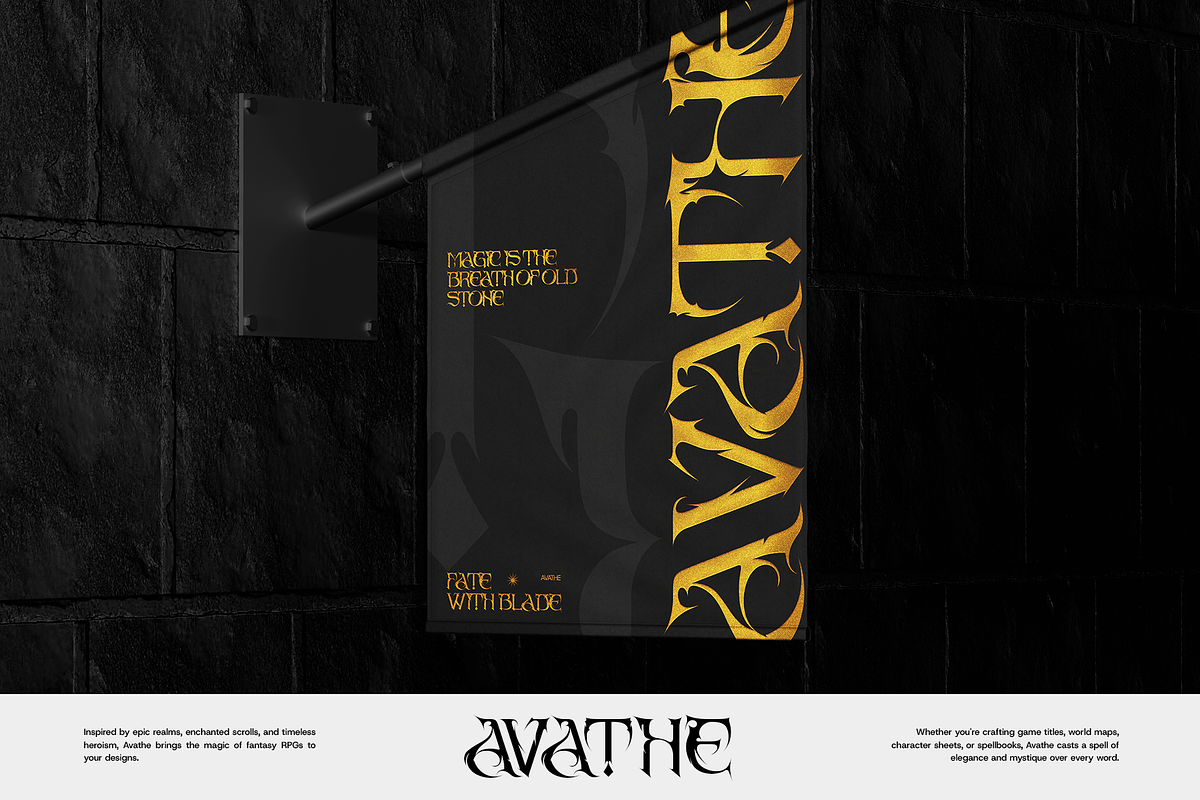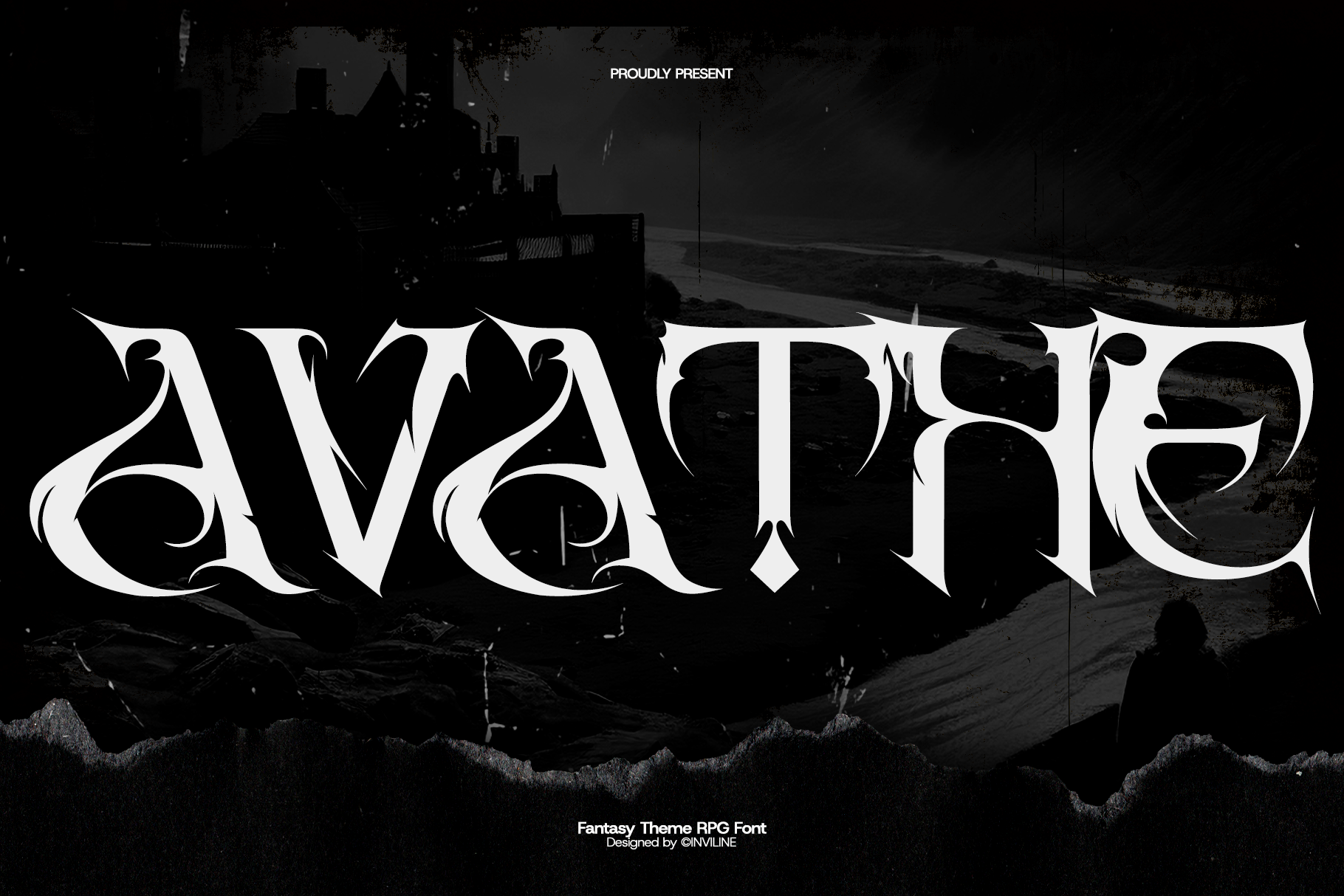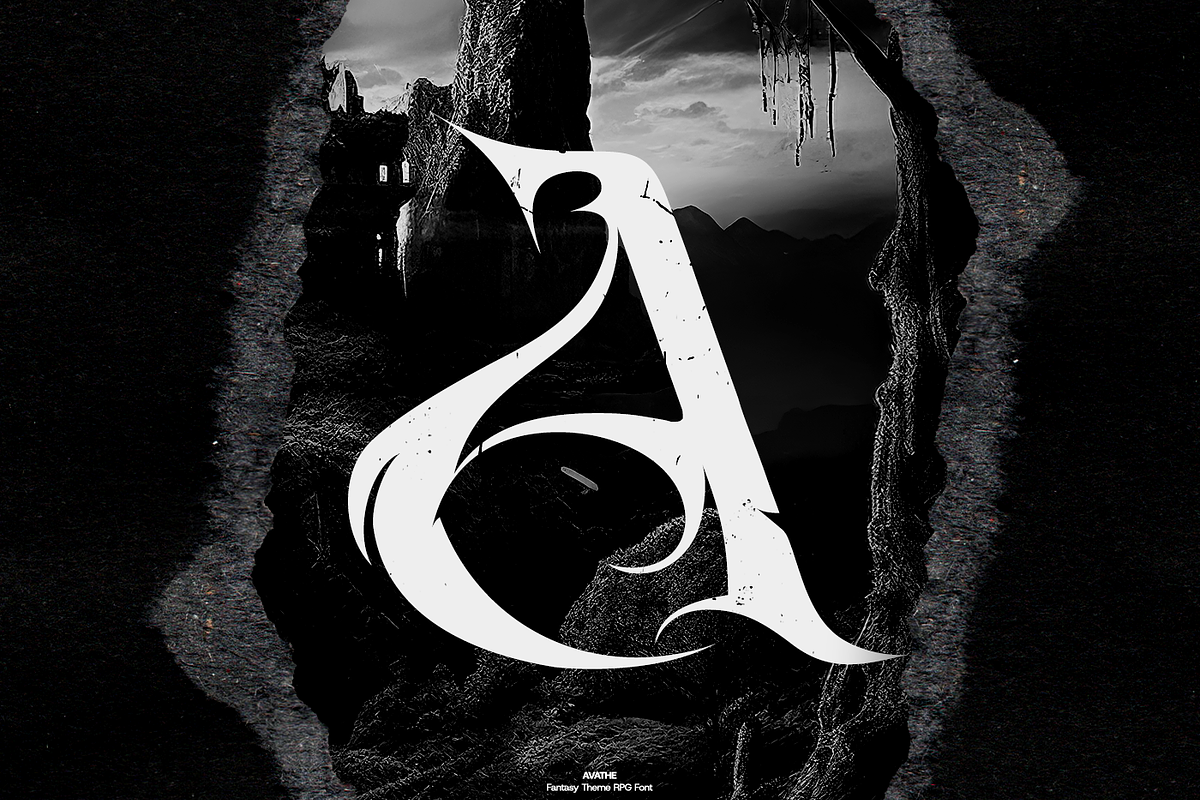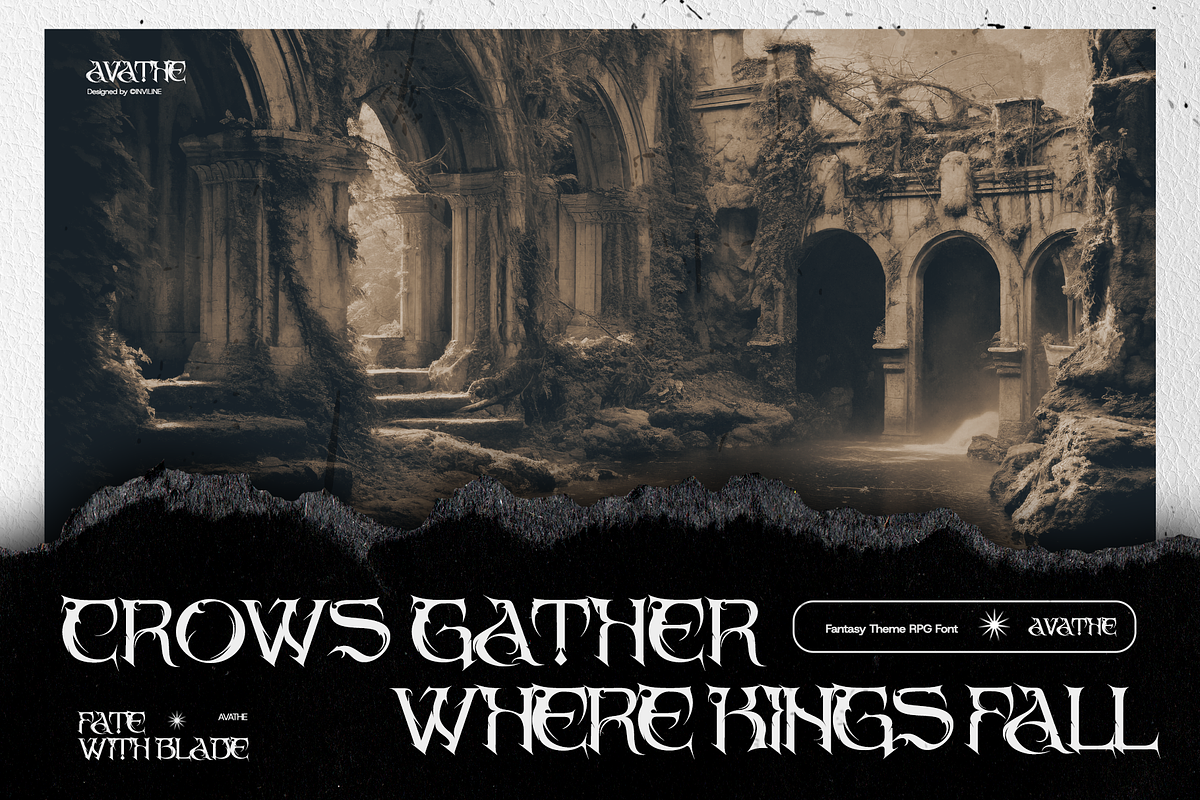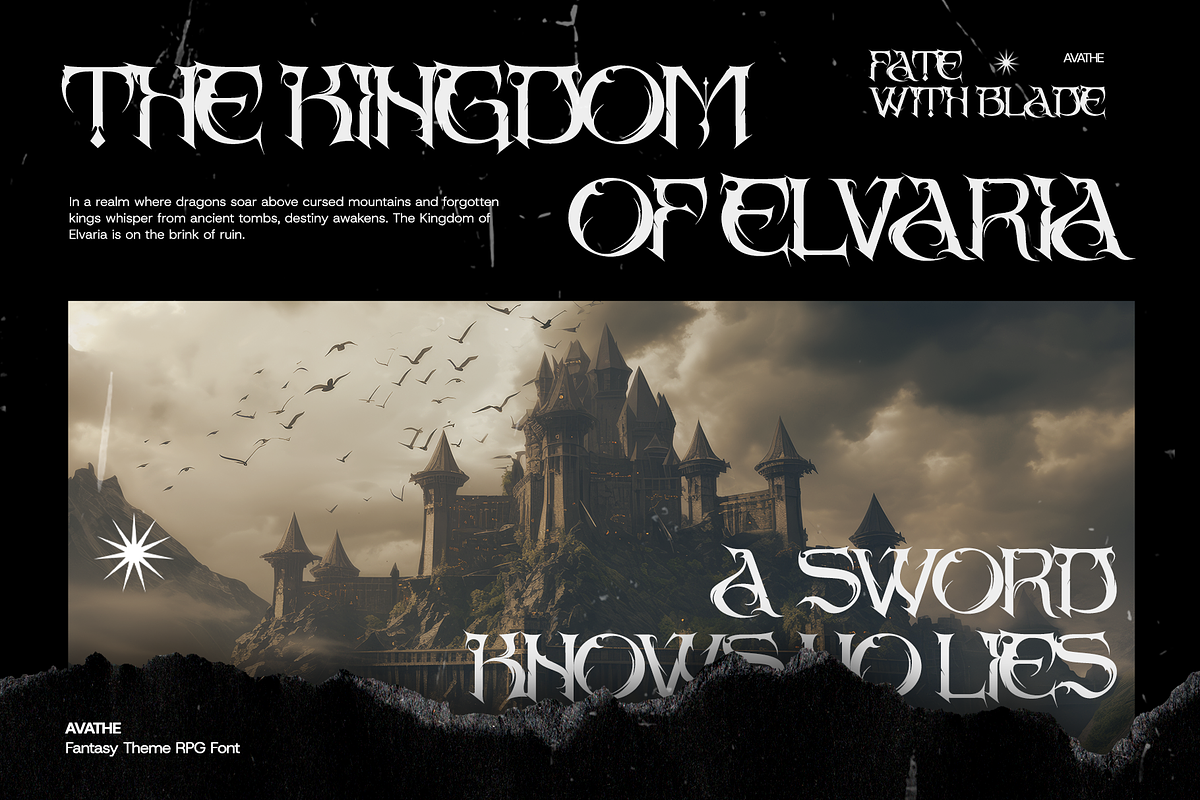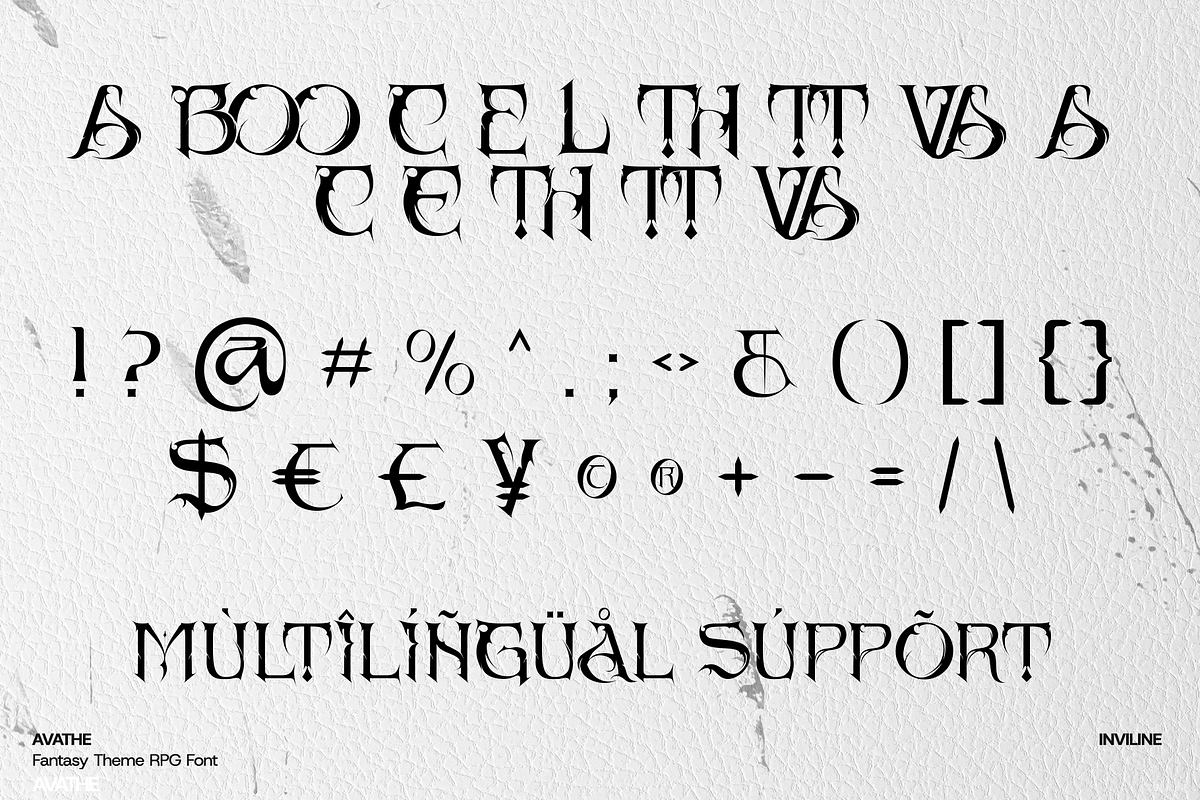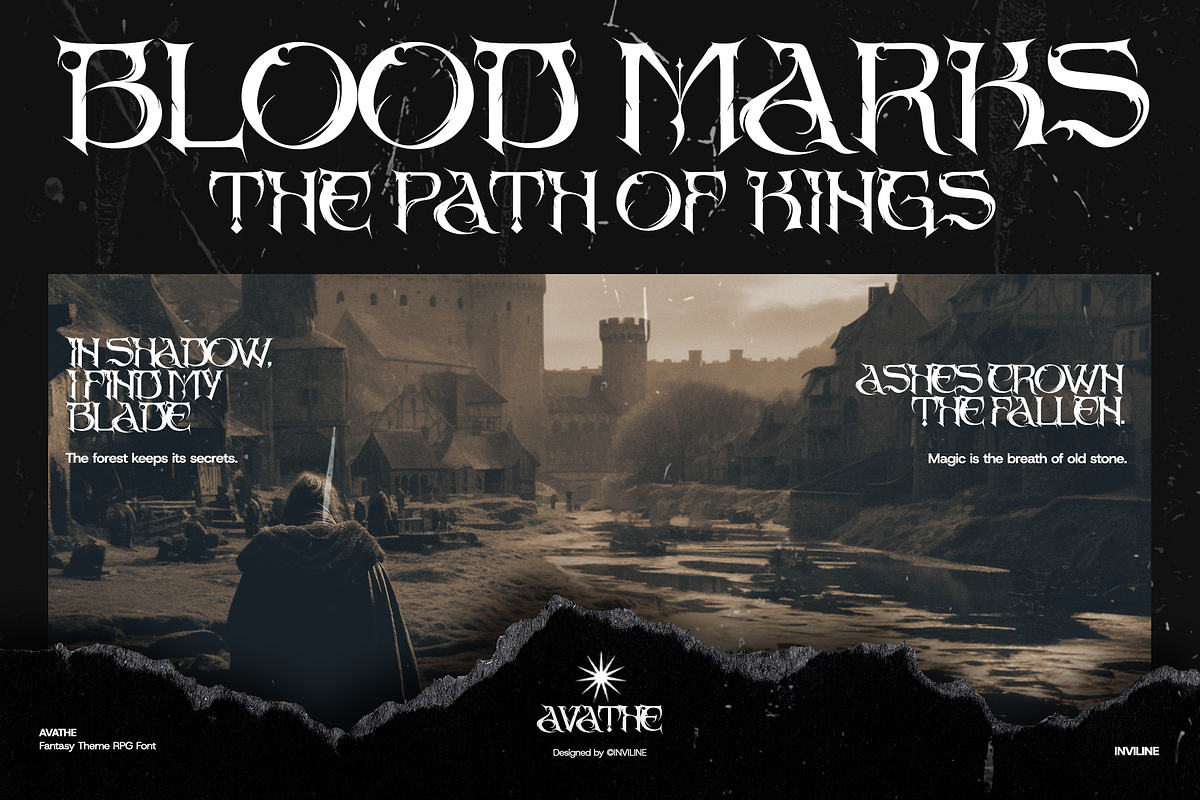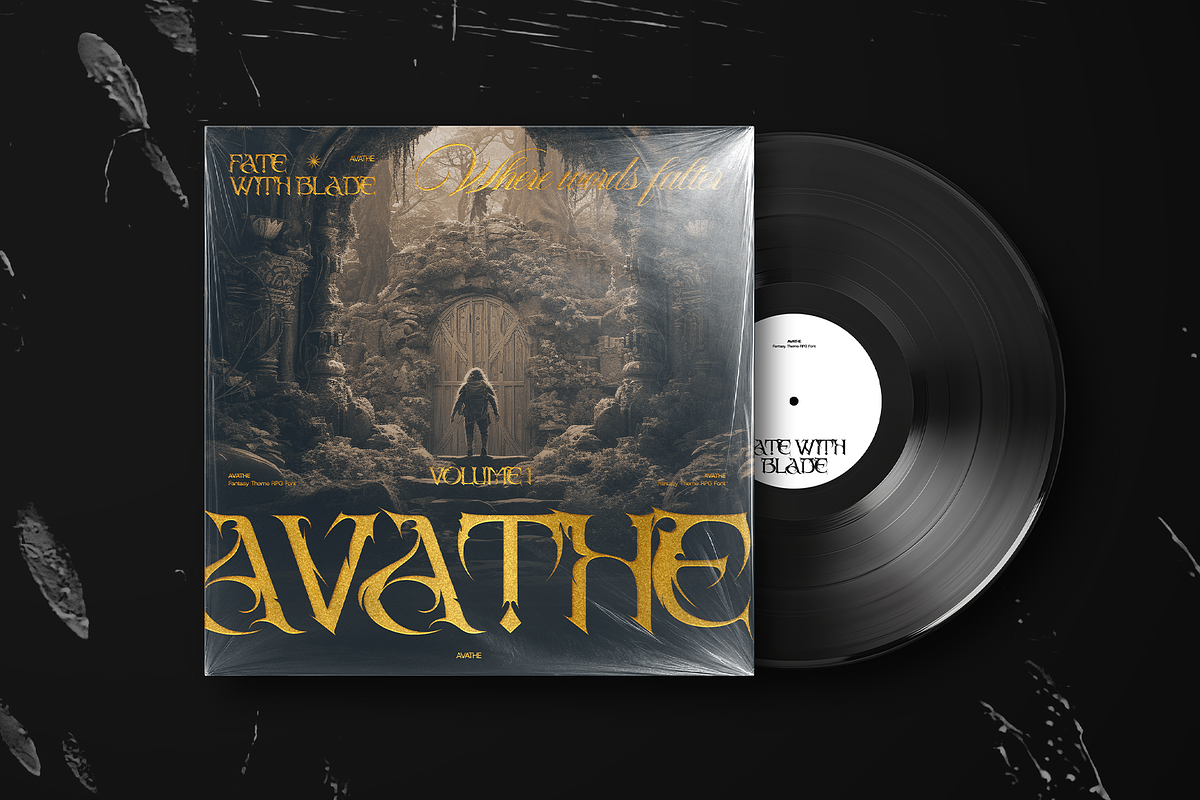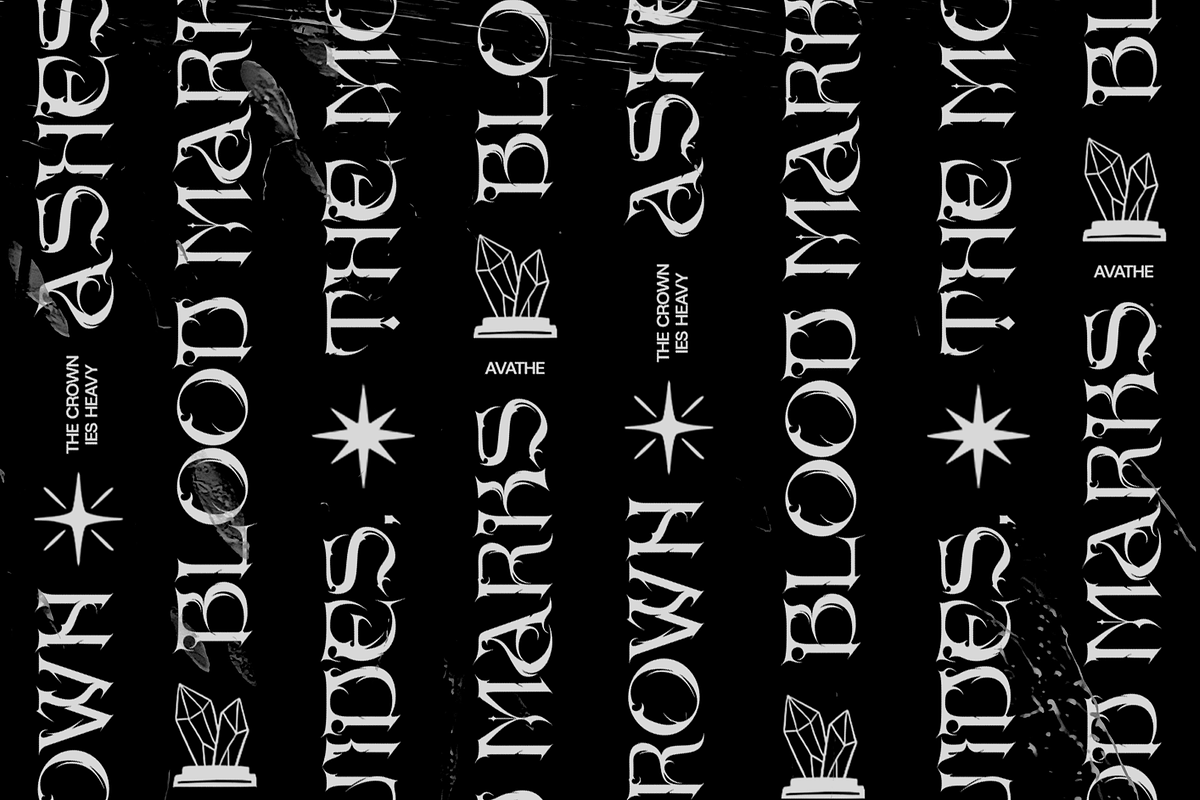
Avathe – Dark Fantasy RPG Font
AVATHE is a gothic fantasy display font inspired by medieval RPG vibes. With sharp serifs, dramatic forms, and unique character shapes, it's perfect for game titles, book covers, metal bands, and dark-themed branding.
- Punctuation & symbols
- Multilingual support (Latin)
- Fantasy & RPG titles
- Horror or gothic branding
- Posters, covers, and merchandise
- YouTube thumbnails, Twitch graphics
- Dark mode UI or digital assets